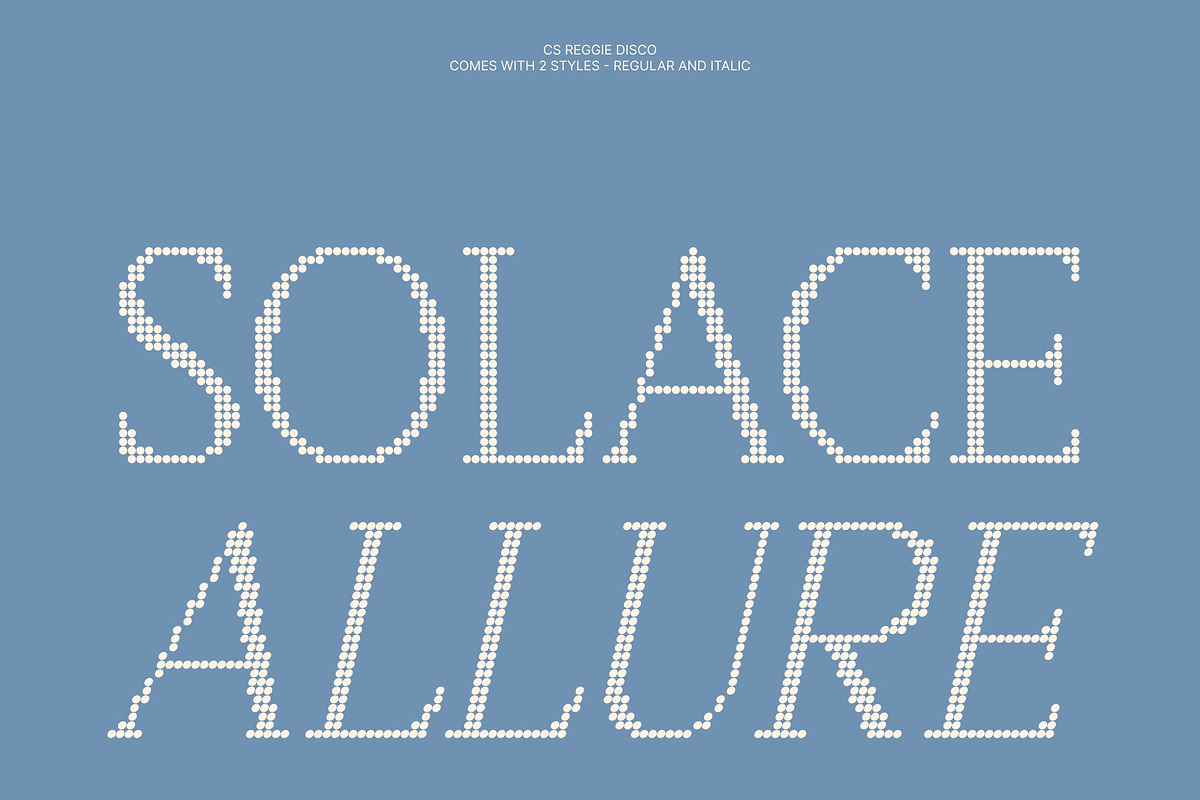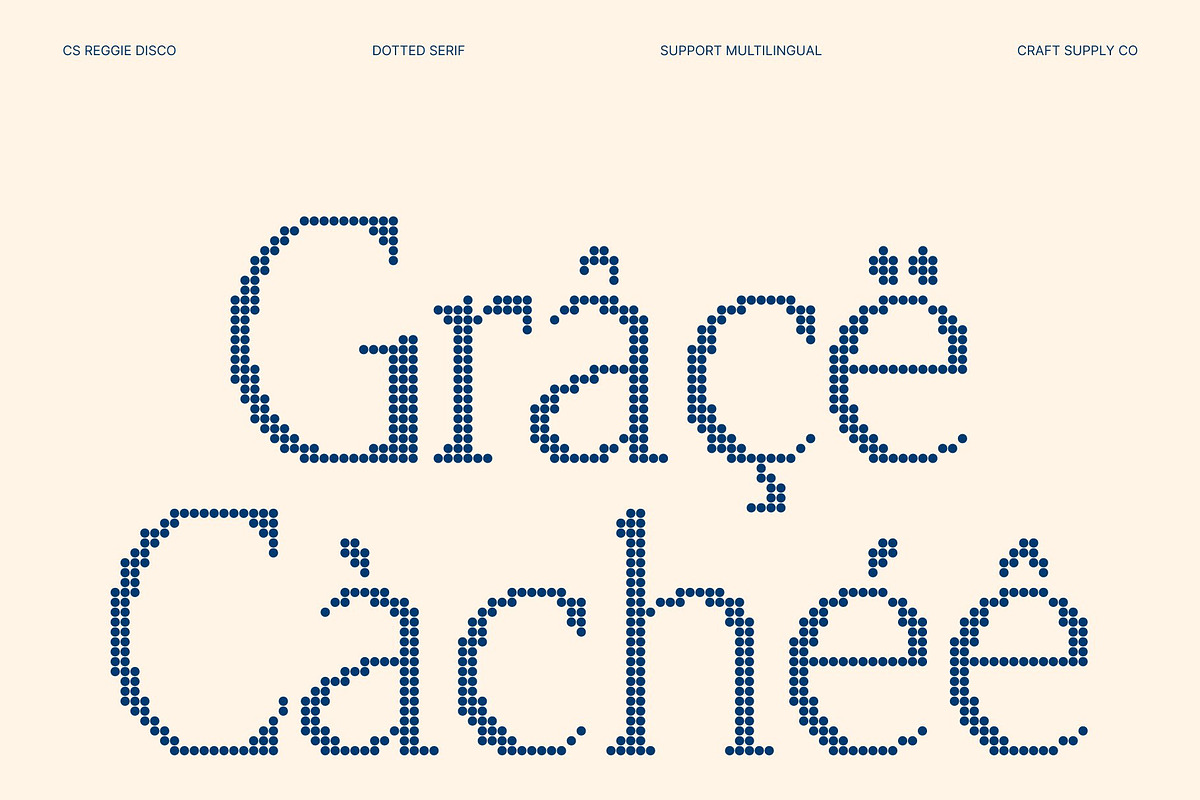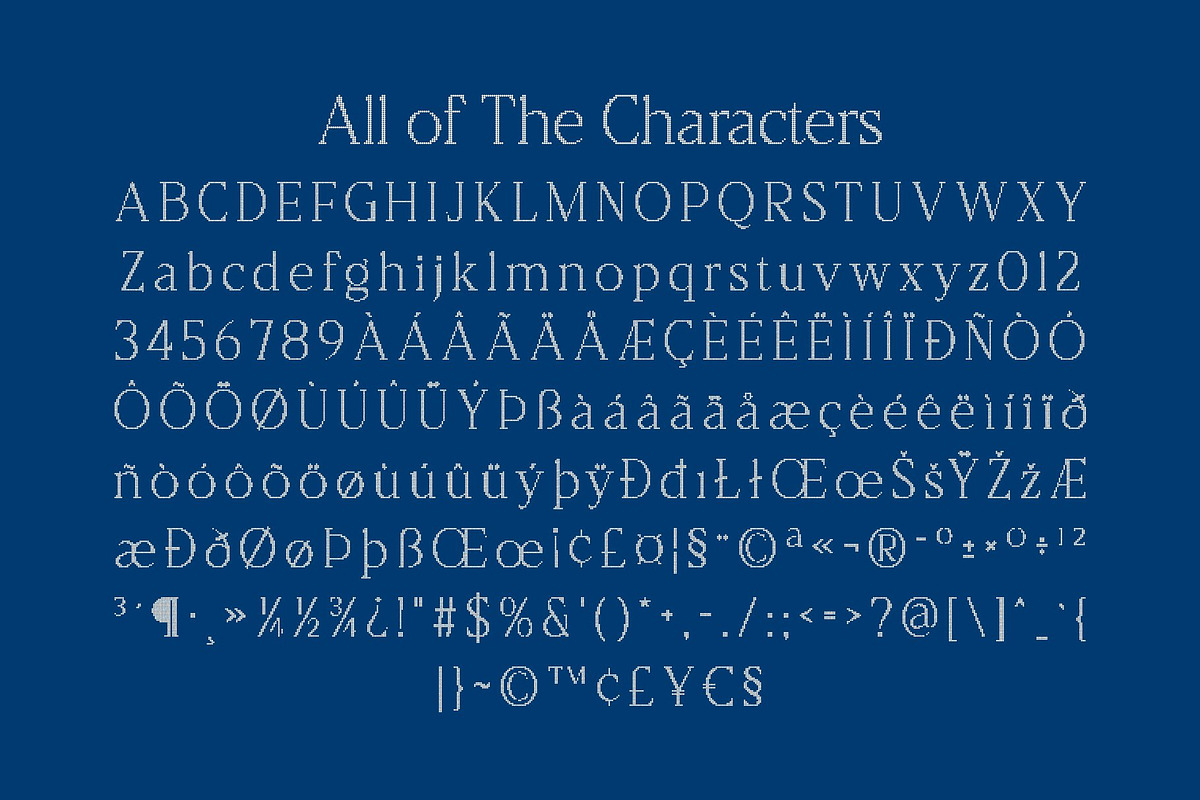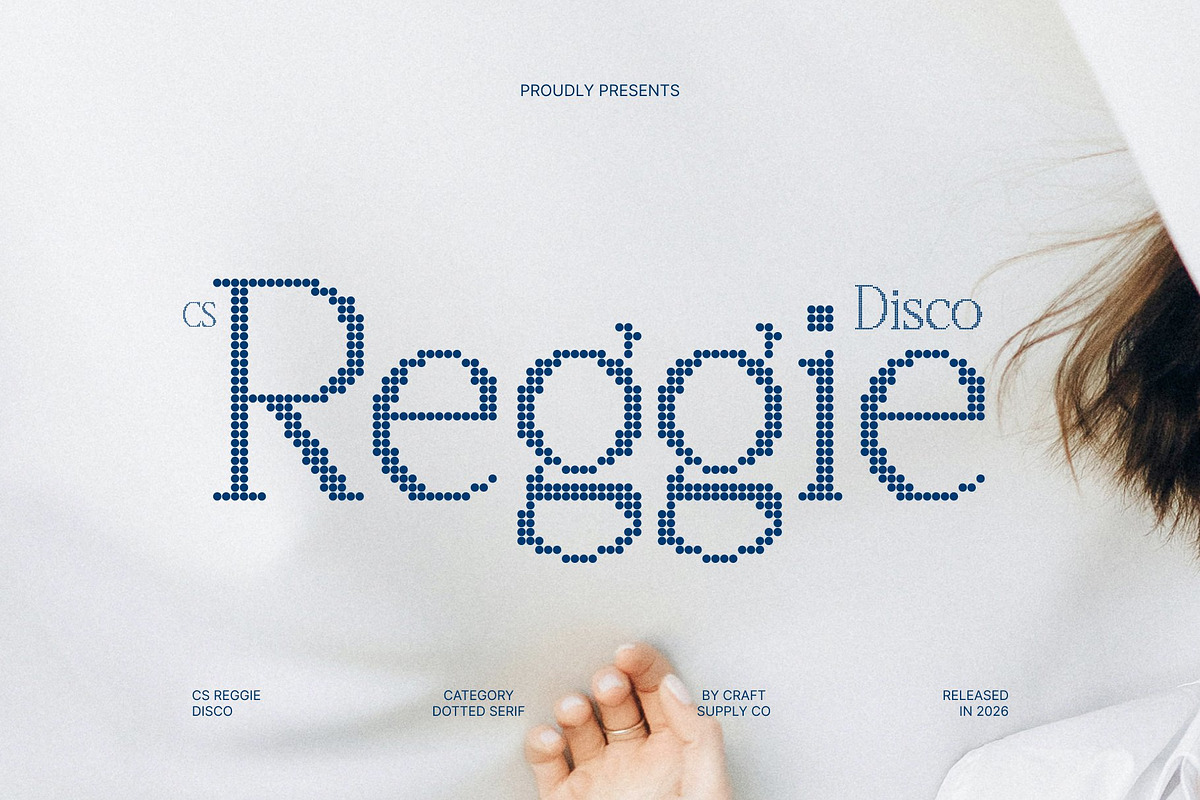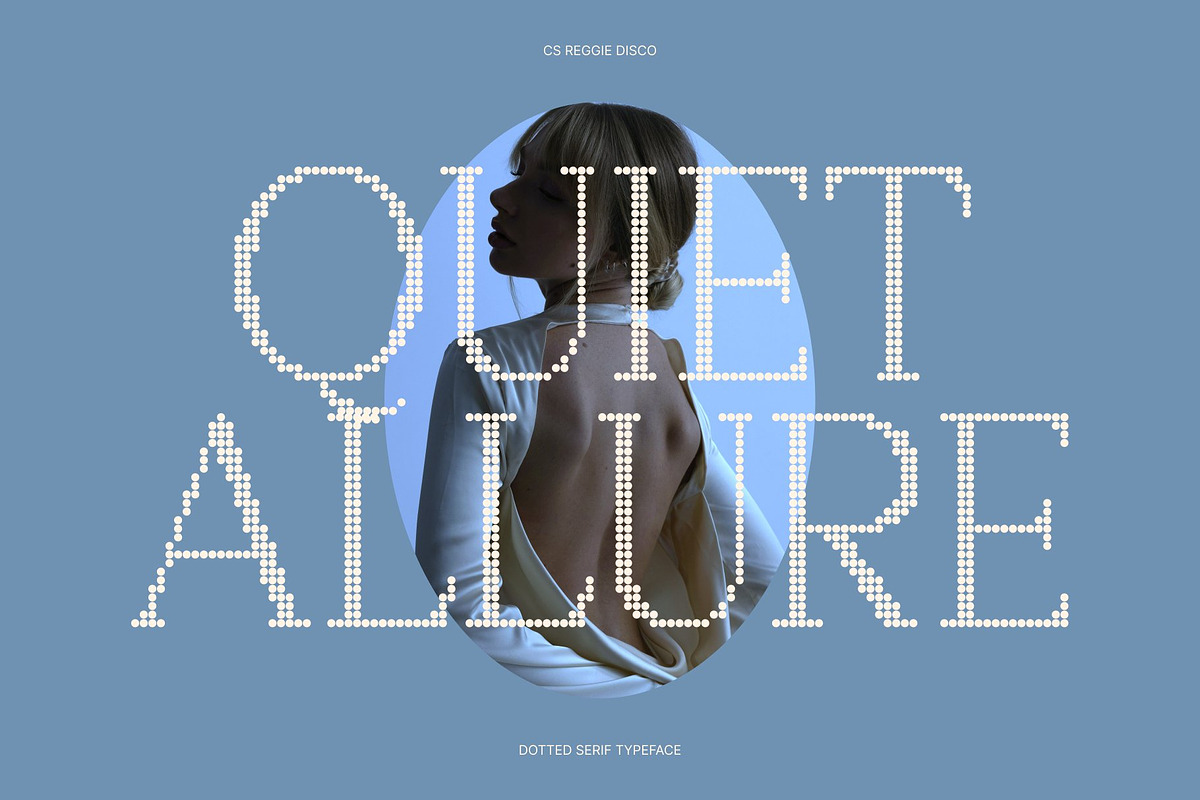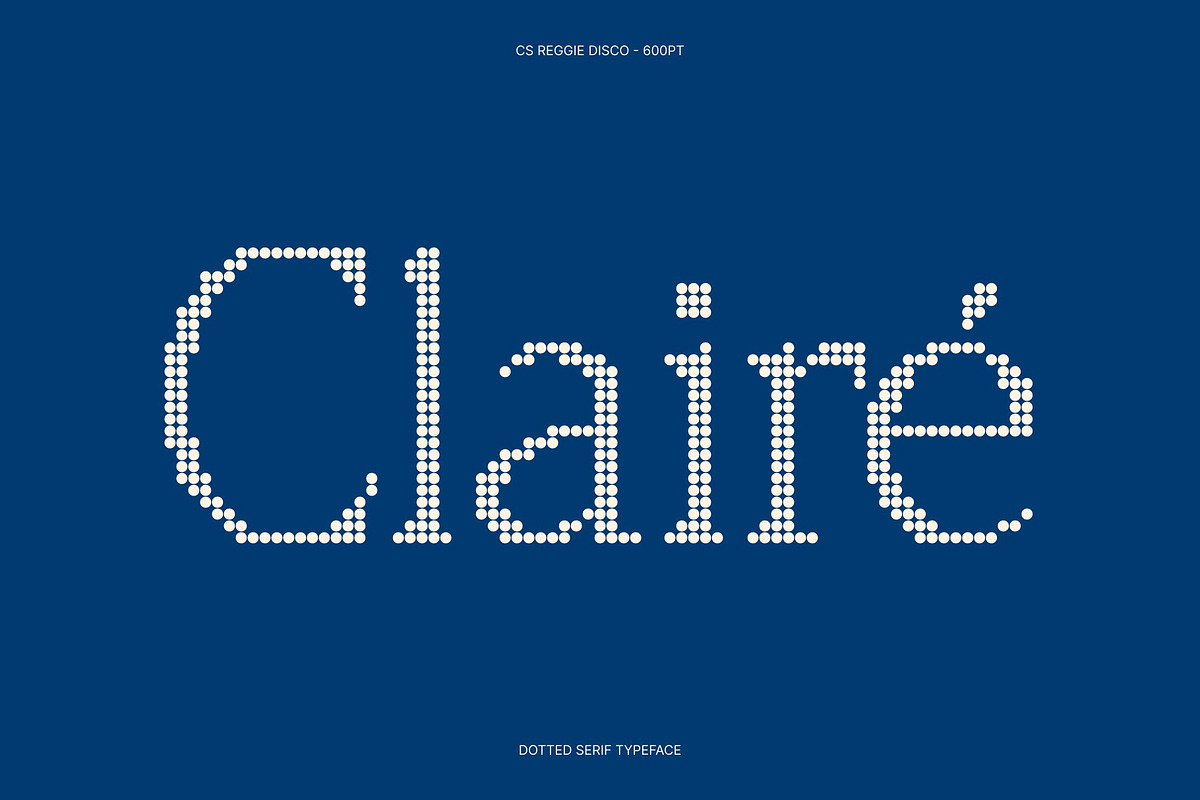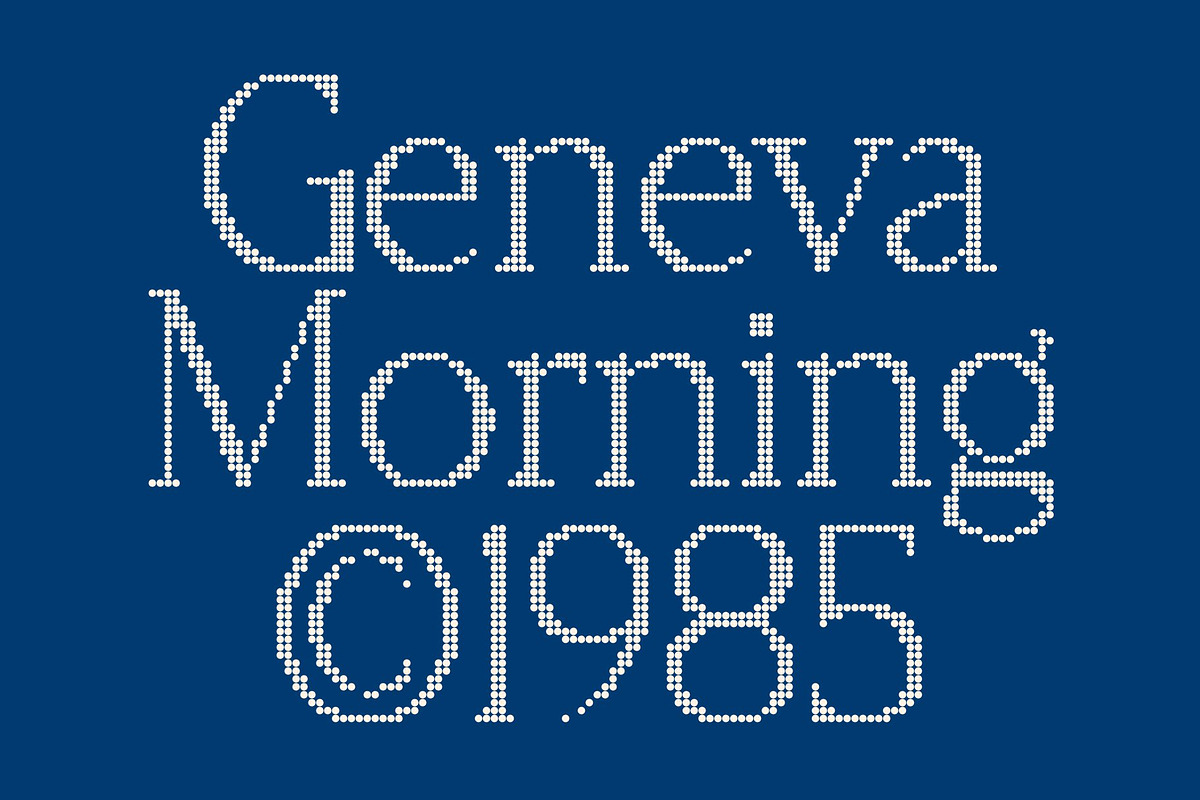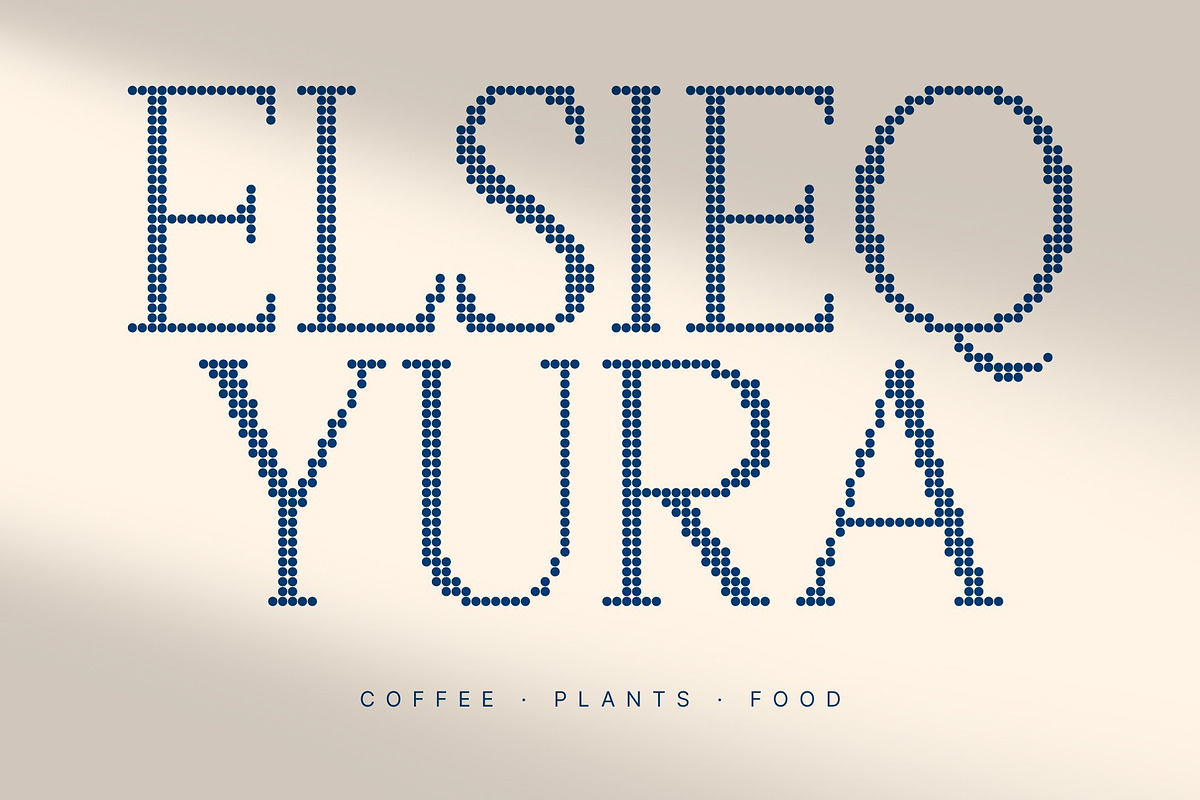
CS Reggie Disco
CS Reggie Disco – Minimalist Elegance with Sparkling Sophistication
Elegant Serif with Disco-Inspired Detail This is a refined serif font that combines minimalist elegance with a vibrant disco-style dotted texture. Its graceful curves and balanced proportions create a sophisticated foundation, while the dotted surface adds a subtle sparkle that enhances its visual charm. This fusion transforms classic elegance into a decorative yet polished typographic experience.
Minimalist Structure with Luminous Character Built on clean lines and refined forms, the font maintains a calm and sophisticated presence. The disco-inspired dotted texture introduces depth and rhythm, giving each letter a distinctive personality while preserving the clarity and balance of the minimalist design.
Modern Simplicity with Refined Style This font captures the beauty of modern minimalism while adding a decorative twist. Its understated serif structure ensures readability and elegance, while the textured surface brings a contemporary sense of vibrancy and visual interest.
Perfect for Luxury Branding and Editorial Design This font excels in luxury branding, editorial layouts, fashion magazines, packaging, and refined visual identities. Its elegant structure conveys professionalism and class, while the sparkling texture adds a memorable decorative element that elevates creative compositions.
CS Reggie Disco Regular
CS Reggie Disco Italic